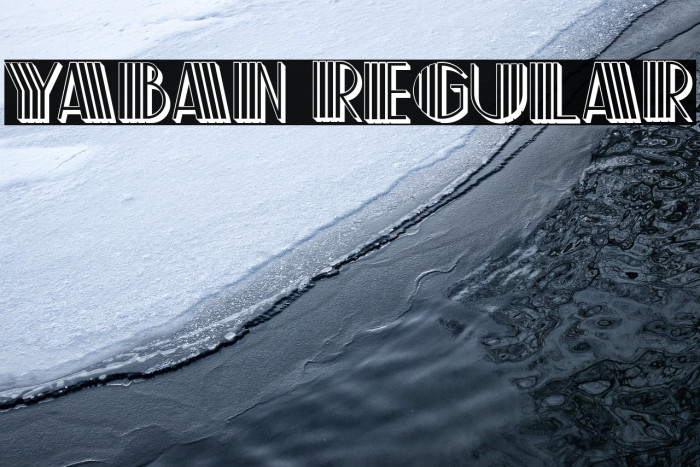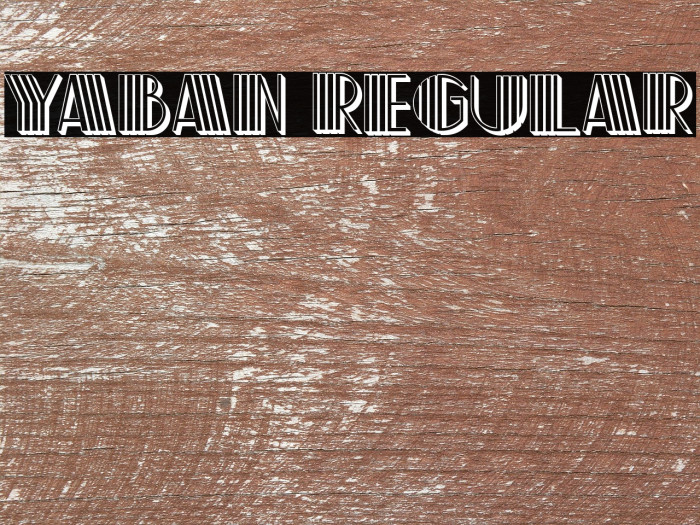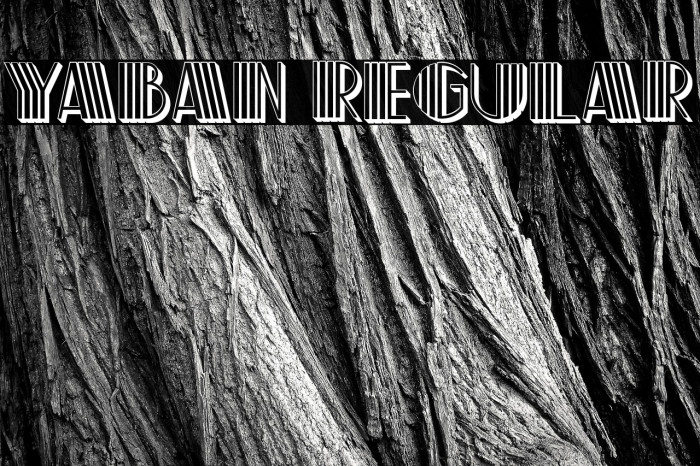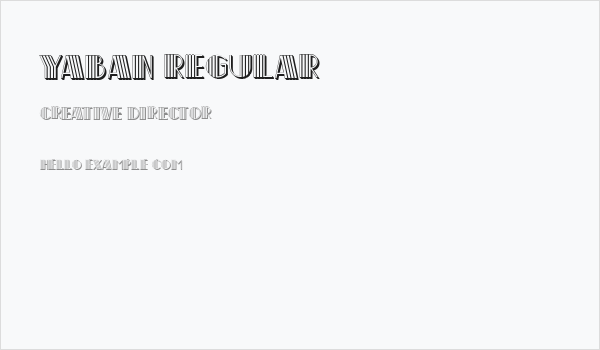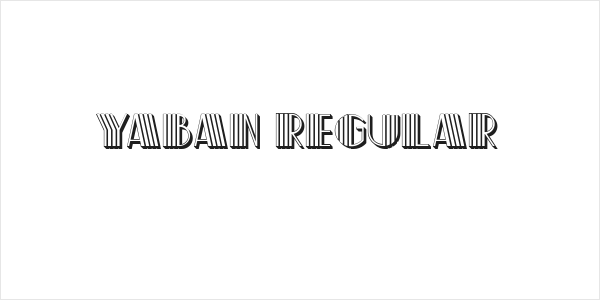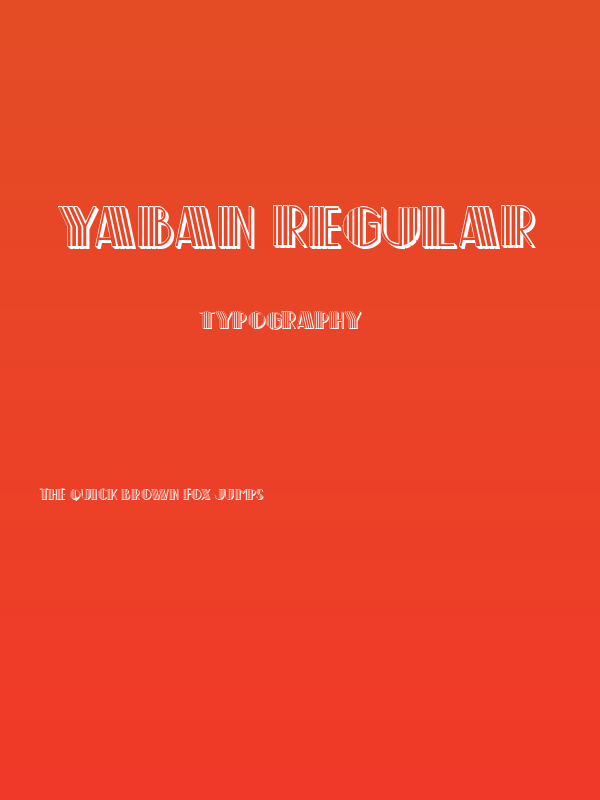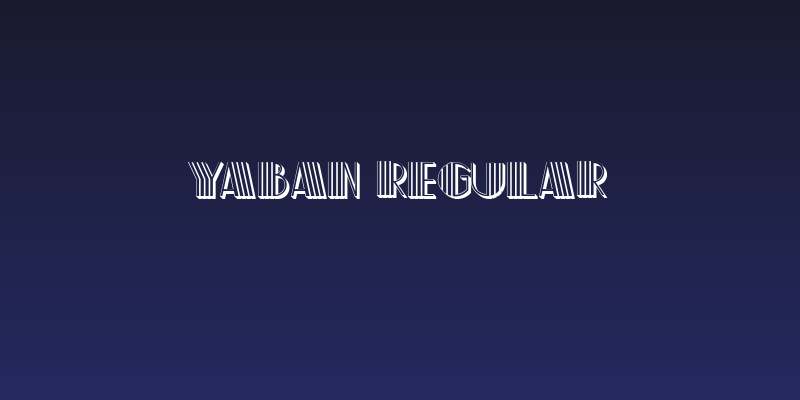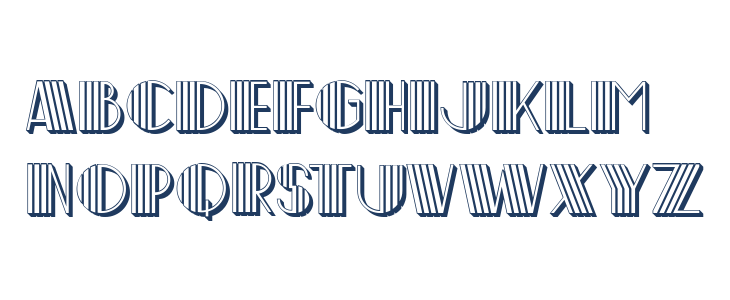
Yaban Regular Font
Yaban Regular Description
This font features a bold, decorative style with a distinct striped pattern running through each character. The uppercase letters are designed with a strong geometric influence, creating a sense of movement and rhythm. The font's unique design is characterized by its high contrast between the thick and thin lines, giving it a dynamic and eye-catching appearance. The characters are evenly spaced, ensuring readability while maintaining its artistic flair. This font is ideal for projects that require a bold statement, such as posters, headlines, and branding materials.
| Proposed Projects | Ideal for posters, headlines, branding, and any project requiring a bold visual impact. |